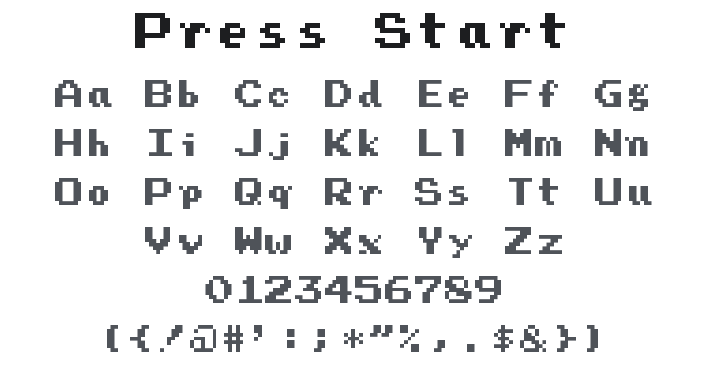
Press Start Font Family
by CodeMan38
Press Start Font Family
• Press Start Regular
• Press Start K
About Press Start
Press Start, based on font design of Gaplus and Legend of Valkyrie. Press Start K, based on the font used in the KGen and Kega emulators.